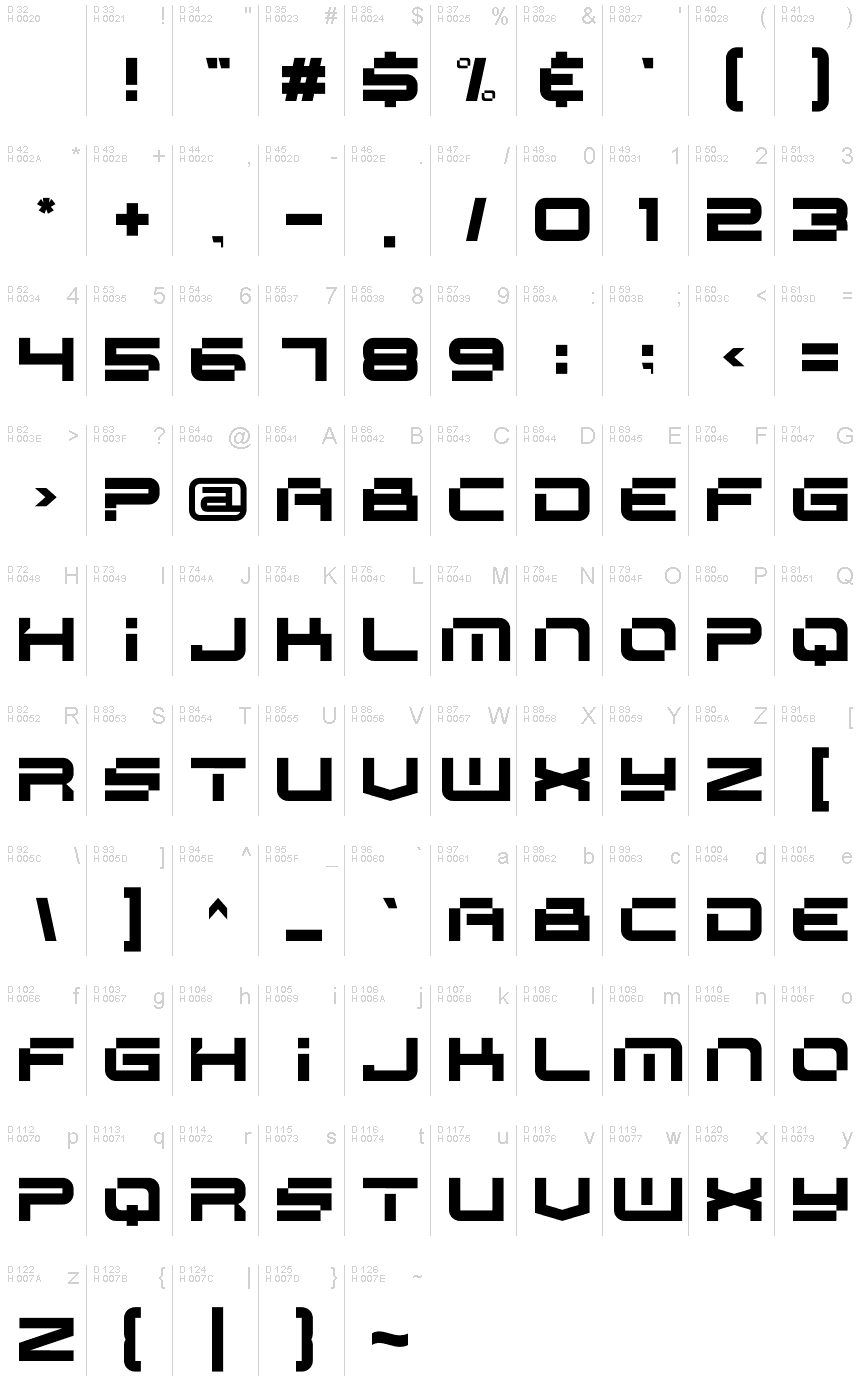
SPACE RACER
Space Racer, designed by MaknaStudio, is a bold display font that embodies the spirit of technological advancement and cosmic speed. With its extra-expanded width and impactful weight, Space Racer commands attention and conveys a sense of futuristic dynamism that's hard to ignore. Its techno style features clean, geometric lines that evoke images of sleek spacecrafts darting through star-studded skies.
The aesthetic appeal of Space Racer lies in its precision-engineered characters, which are both highly legible and stylistically distinctive. This makes it an excellent choice for branding projects, poster designs, game interfaces, and any creative endeavor where a touch of sci-fi elegance is desired. Whether used for titles or short bursts of text, Space Racer has the versatility to launch your designs into another dimension with its ultramodern flair.